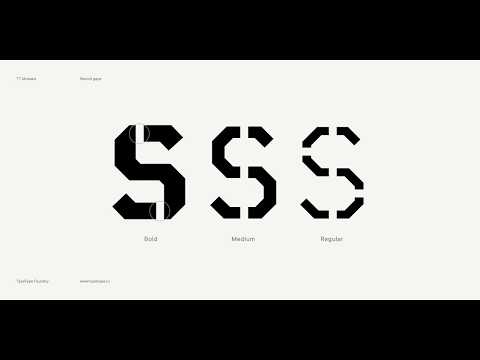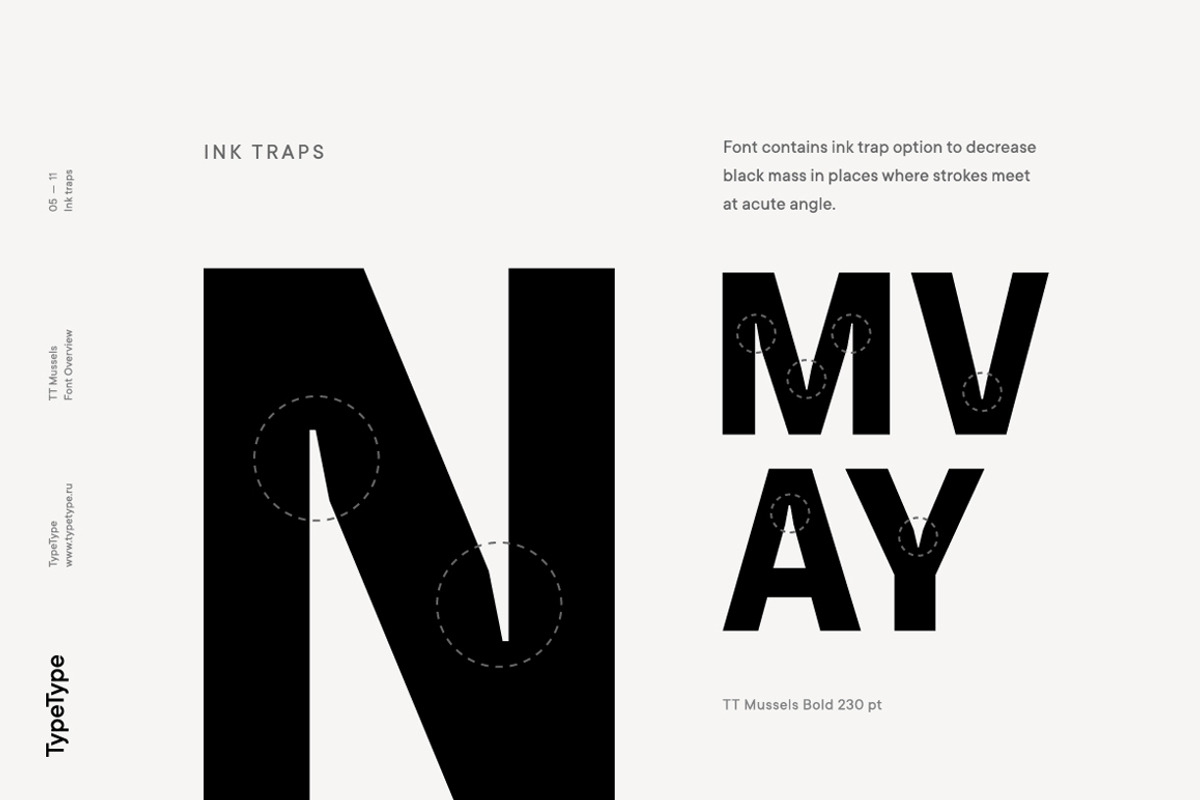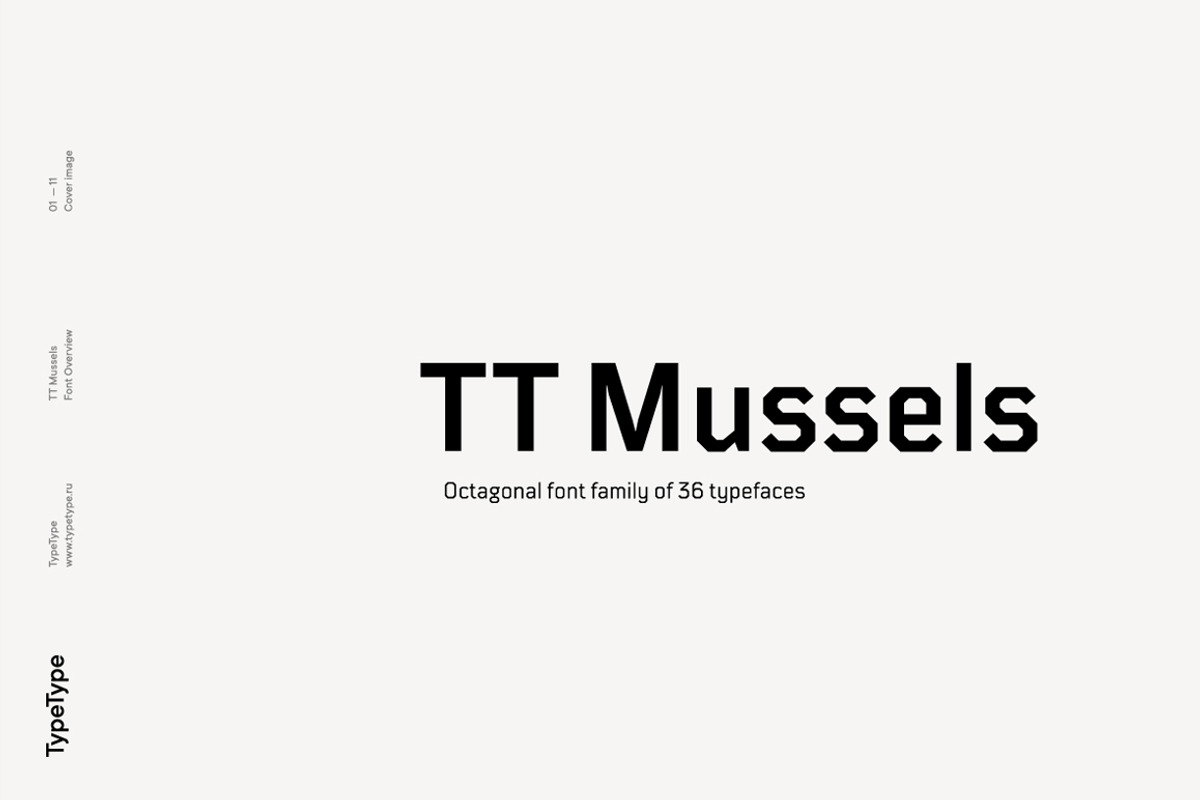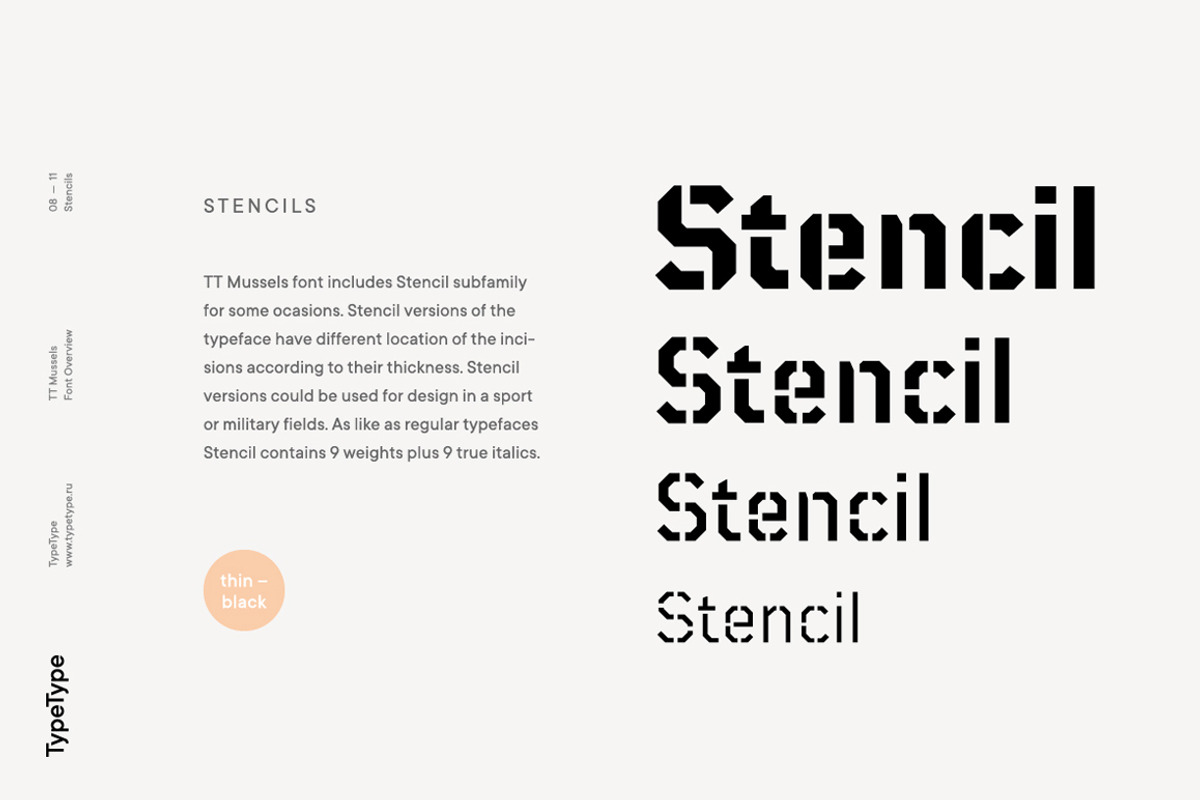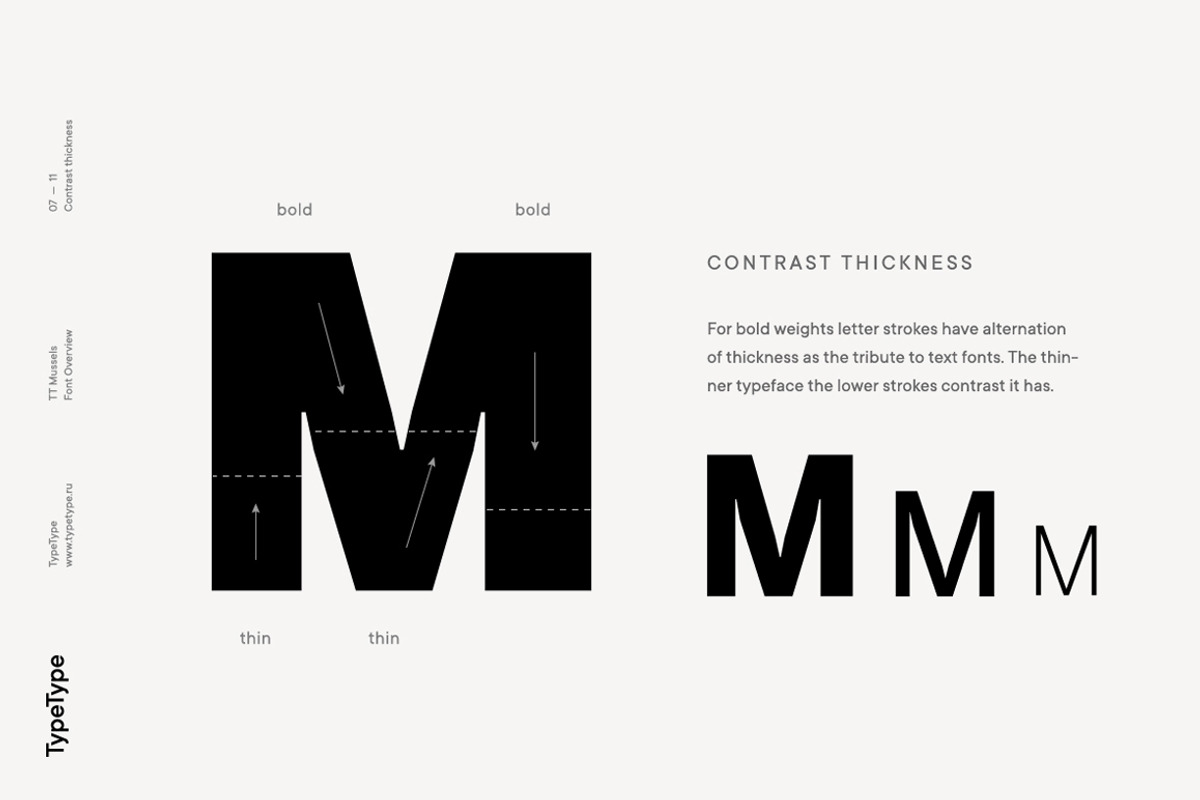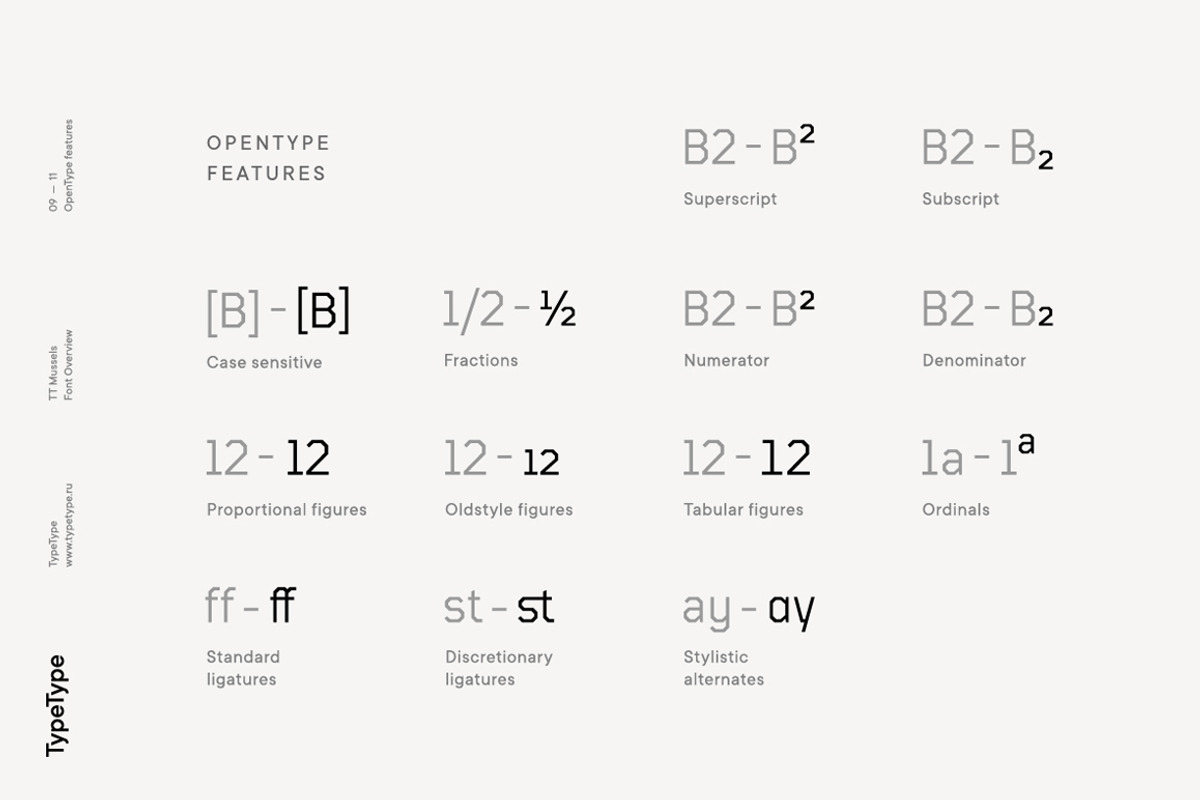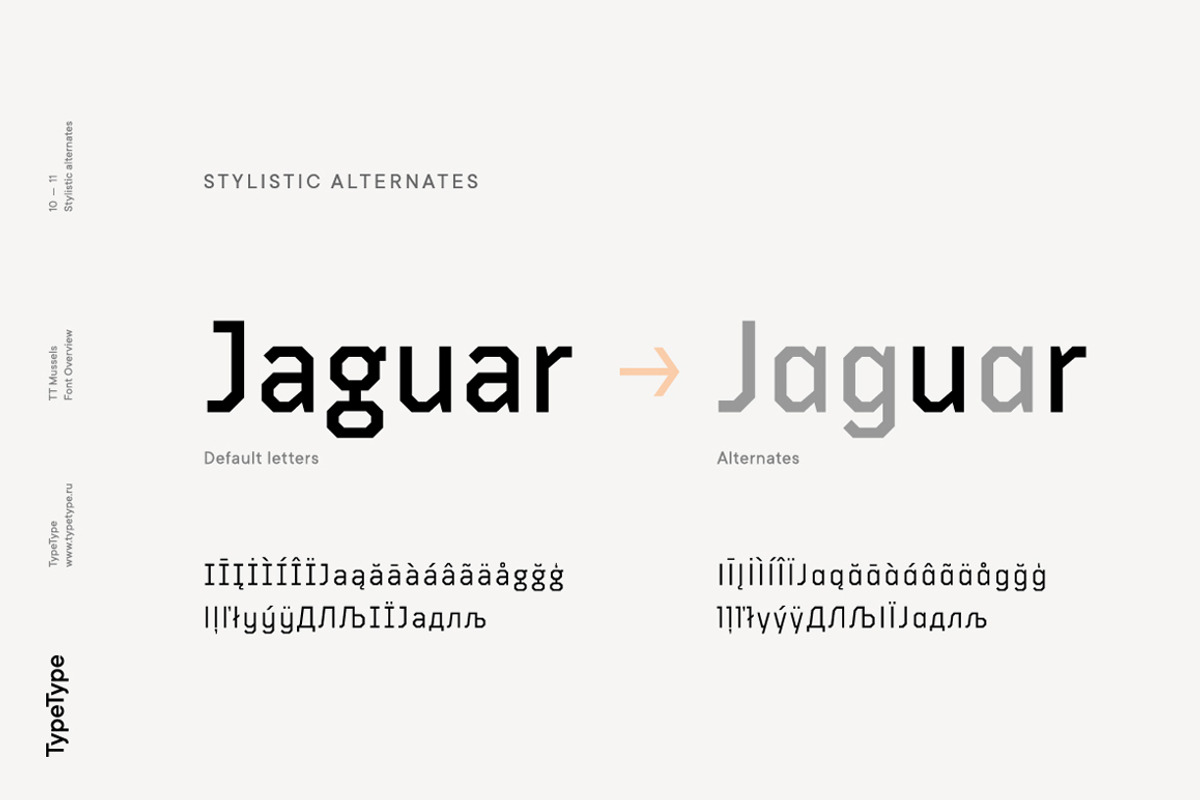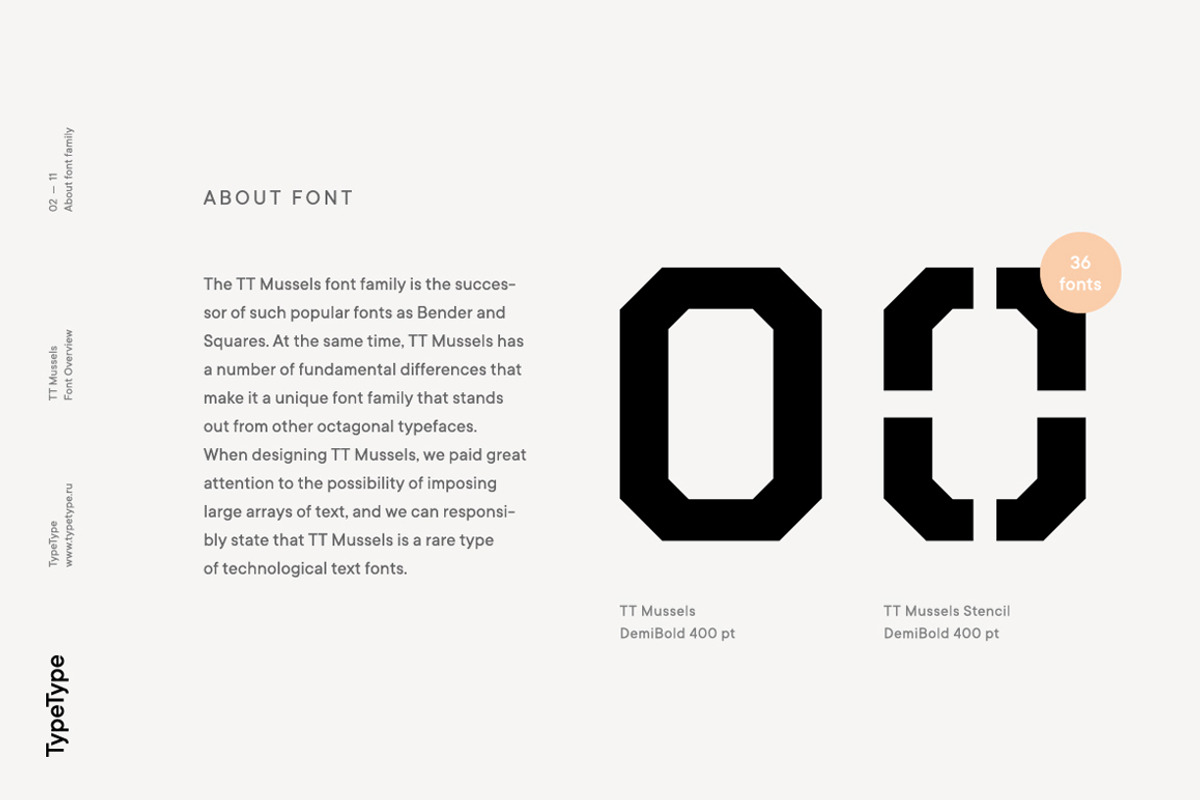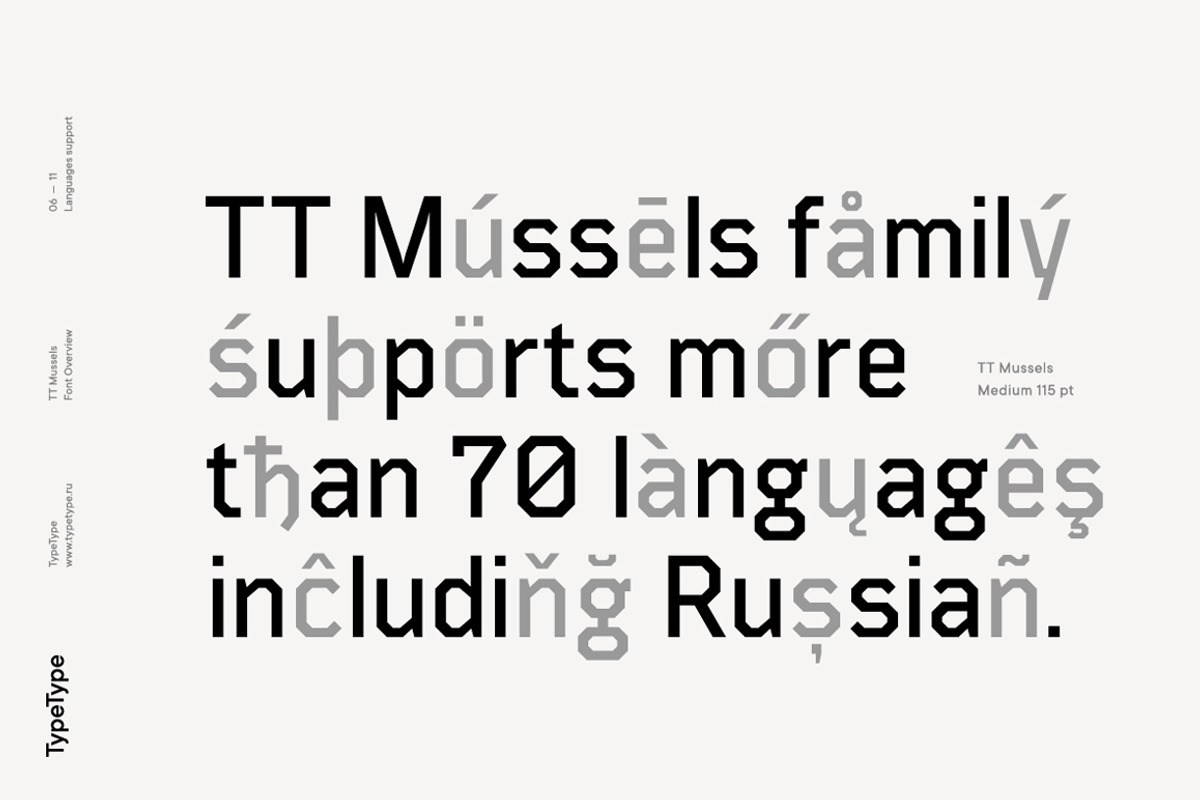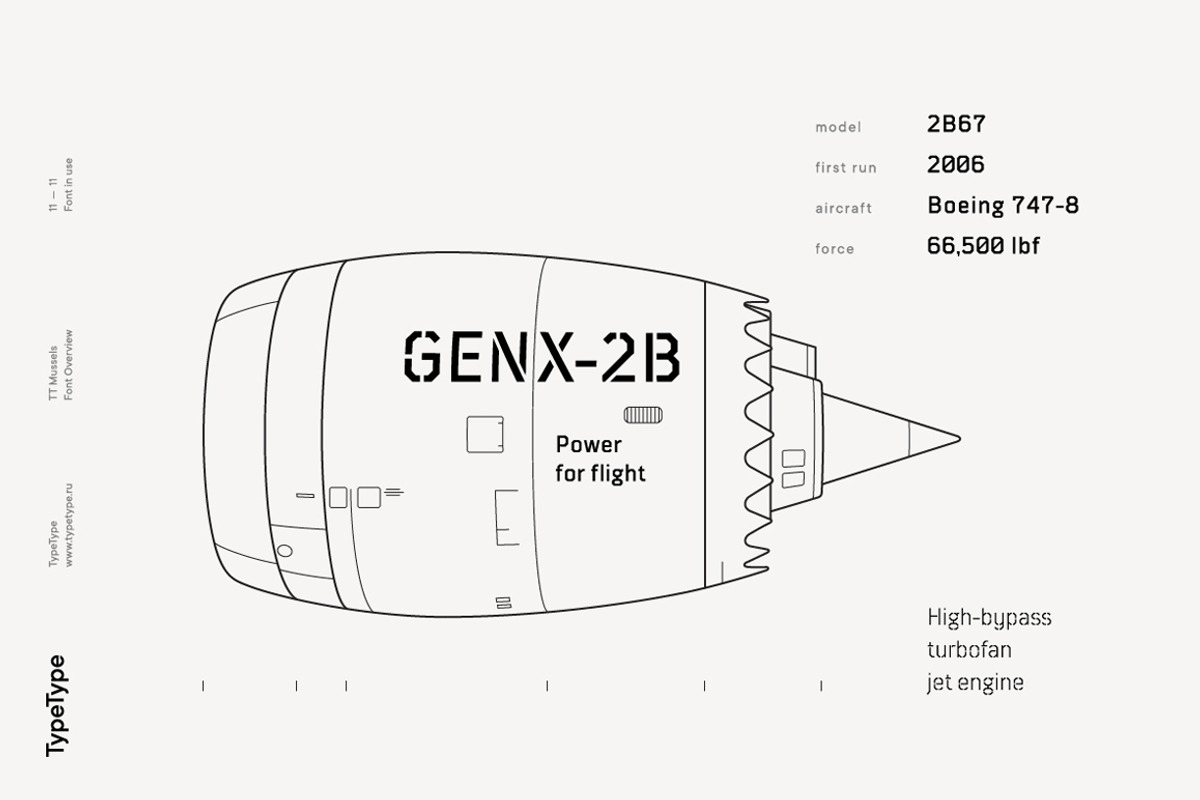
TT Mussels
- TT Mussels—9 weights & 9 italics
- TT Mussels Stencil—9 weights & 9 true Italics
- 552+ glyphs for each typeface
- Supports 160 languages (incl. Cyrillic)*
- OpenType features, including Ligatures and Contextual Alternates**
The TT Mussels font family is the successor of such popular fonts as Bender and TT Squares. At the same time, TT Mussels has a number of fundamental differences that make it a unique font family that stands out from other octagonal typefaces. When designing TT Mussels, we paid great attention to the possibility of imposing large arrays of text, and we can responsibly state that TT Mussels is a rare type of technological text fonts. To go along with the rest, we've created a stencil version of the typeface, in which the location of the incisions changes according to their thickness. In total, the TT Mussels font family consists of 36 faces, which include among other things stylistic alternatives, ligatures, and also implements a broad support for OpenType features: case, frac, ordn, sups, sinf, numr, dnom, onum, tnum, pnum, liga, dlig, salt (aka ss01).
Dynamic contrast is widely implemented in TT Mussels. It is most noticeable in the Black typeface, where the ratio of the thickness of the vertical strokes to the horizontal strokes is approximately two to one. For the Thin typeface, the thickness of the vertical strokes is already consistent with the thickness of the horizontal strokes. You can also find other signs of respect for traditional text fonts in the TT Mussels design, such as the trace of pen movement which is historically typical for antiquas. For example, in the letter M from the Black face, we can first see a thin stroke, then a thick diagonal stroke followed by a thin diagonal stroke, and a finishing bold vertical stroke. As in the case of dynamic contrast, this effect gradually disappears when approaching thin faces. In thick faces, in places such as the "armpits" of the letters MNИ or the junctions of the diagonals of WVvw, there are visual compensators that brighten the bold typefaces. As the thickness of typefaces moves from thick to thin, the dimensions and conceptual values of compensators change, and in thin typefaces they completely disappear.